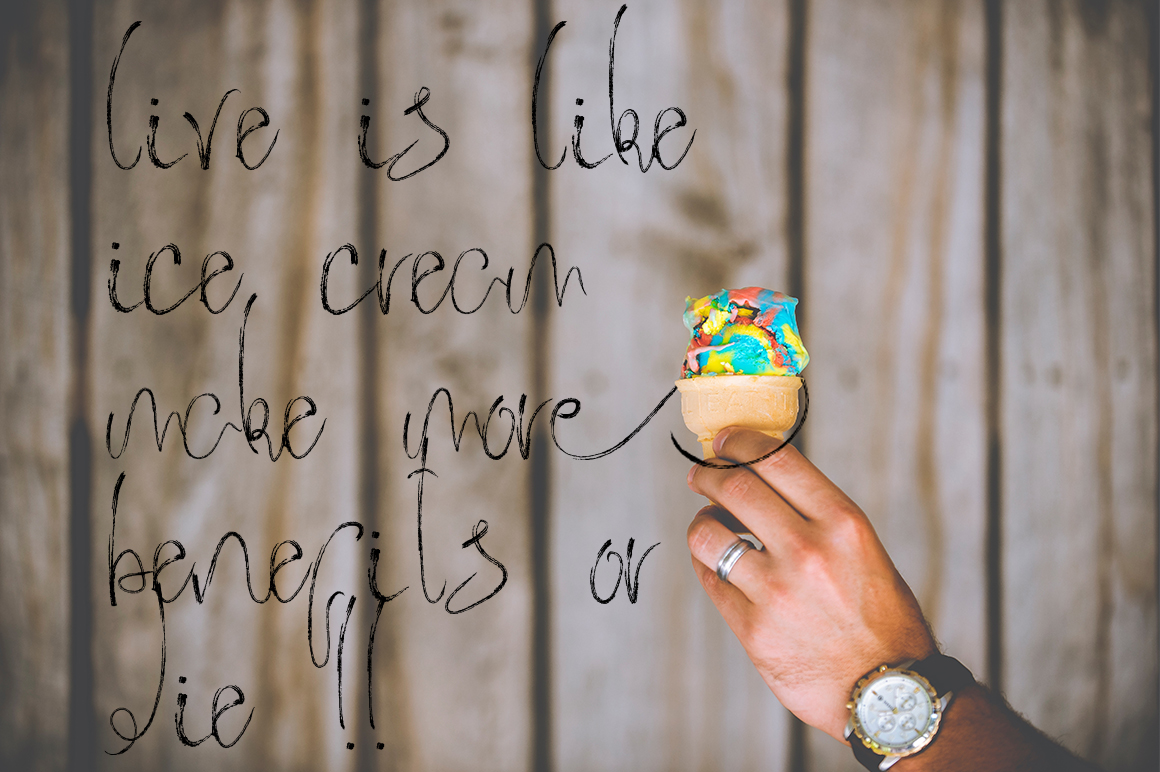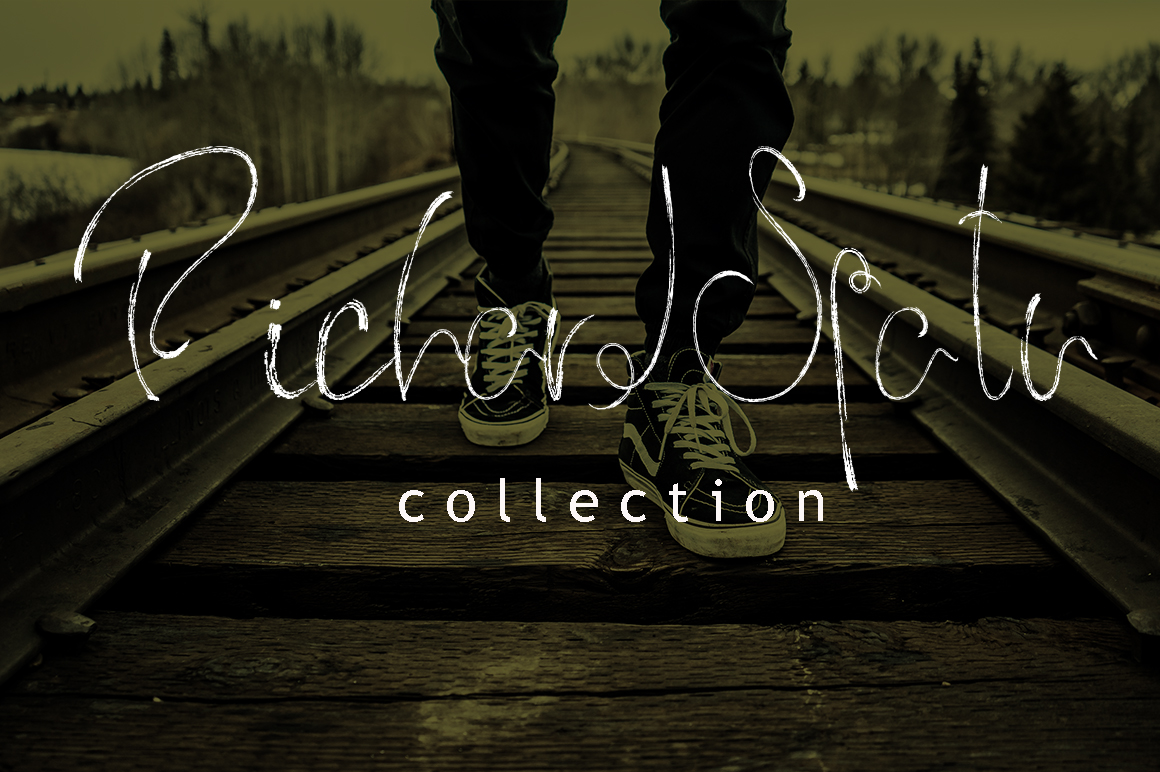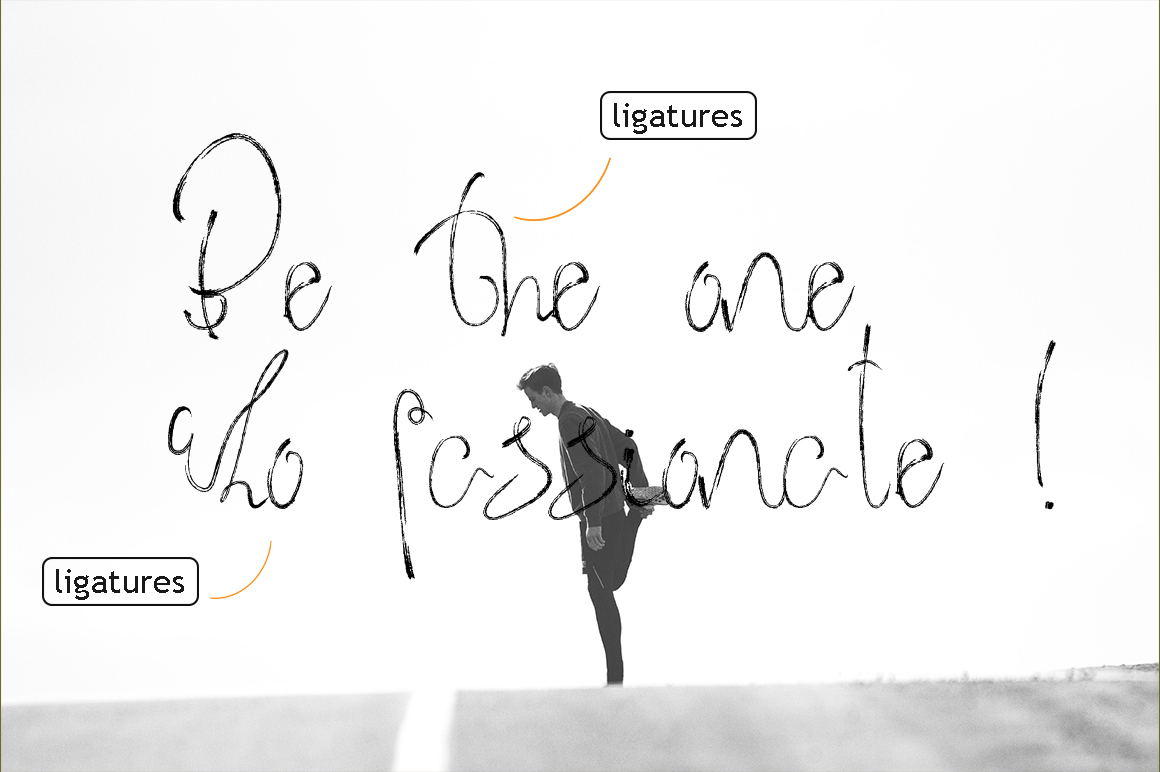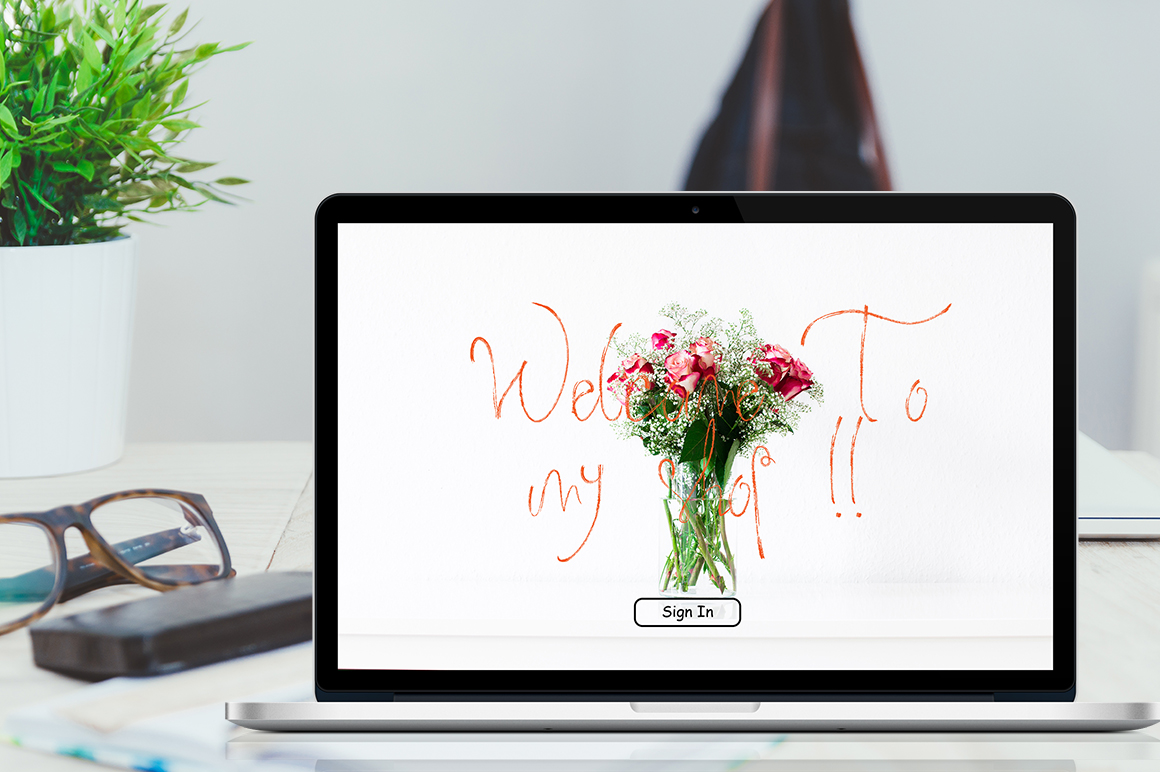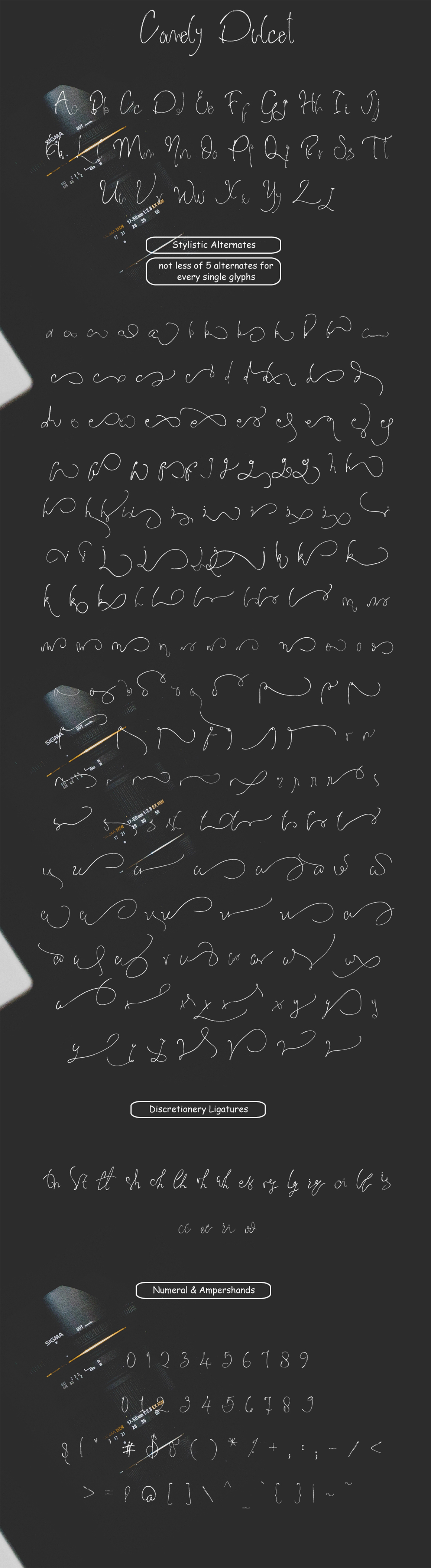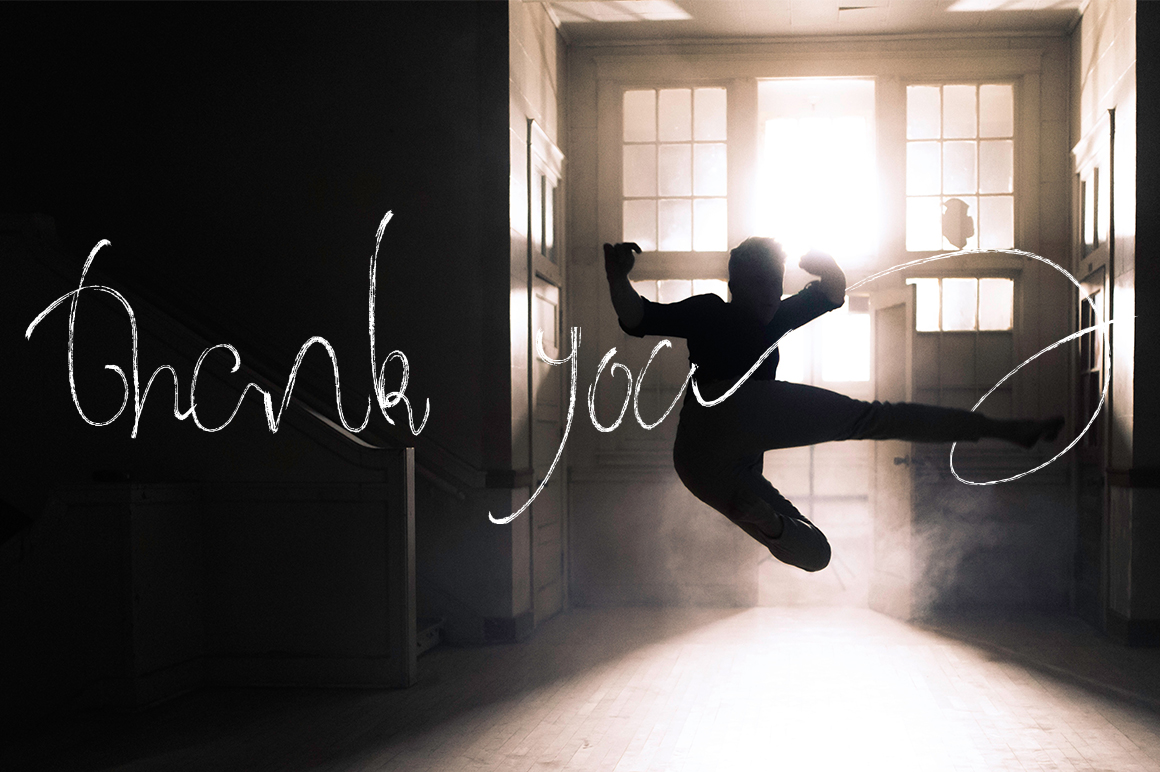
Introducing Comely Dulcet Font: A Thin Handmade Script for Personalized Designs
Are you a designer or crafter looking for a unique and personal touch to add to your designs? Look no further than the Comely Dulcet Font, a beautiful thin handmade script that is sure to elevate your work. In this article, we’ll take a closer look at the Comely Dulcet Font, its features, and how it can be used to add a touch of elegance and sophistication to your designs.
What is Comely Dulcet Font?
Comely Dulcet is a thin handmade script font created with the intention of giving a personal touch to your designs. The font is carefully crafted to provide a delicate and elegant feel, making it perfect for a variety of design projects, from wedding invitations and branding materials to craft tutorials and digital art.
Features of Comely Dulcet Font
The Comely Dulcet Font boasts several features that make it a standout choice for designers and crafters. Some of its key features include:
- Thin and delicate: The Comely Dulcet Font is a thin and delicate script font that provides a subtle and elegant feel to your designs.
- Handmade: The font is carefully handmade, giving it a unique and personal touch that sets it apart from other fonts.
- Script style: The Comely Dulcet Font is a script font that provides a flowing and connected feel, perfect for creating elegant and sophisticated designs.
- Versatile: The font is versatile and can be used for a variety of design projects, from digital art and branding materials to craft tutorials and wedding invitations.
How to Use Comely Dulcet Font
The Comely Dulcet Font is easy to use and can be incorporated into a variety of design projects. Here are a few ways you can use the font:
- Wedding invitations: The Comely Dulcet Font is perfect for creating beautiful and elegant wedding invitations that set the tone for a special day.
- Branding materials: The font can be used to create a cohesive brand identity, including logos, business cards, and letterheads.
- Craft tutorials: The Comely Dulcet Font is a great choice for craft tutorials, adding a personal touch to your instructions and making them more visually appealing.
- Digital art: The font can be used to add a touch of elegance and sophistication to digital art, including illustrations, graphics, and more.
Benefits of Using Comely Dulcet Font
There are several benefits to using the Comely Dulcet Font in your designs. Some of the benefits include:
- Unique and personal touch: The Comely Dulcet Font provides a unique and personal touch to your designs, setting them apart from others.
- Elegant and sophisticated: The font adds an elegant and sophisticated feel to your designs, making them perfect for a variety of applications.
- Versatile: The Comely Dulcet Font is versatile and can be used for a variety of design projects, making it a great addition to your font library.
- Easy to use: The font is easy to use and can be incorporated into a variety of design projects, making it a great choice for designers and crafters of all levels.
In conclusion, the Comely Dulcet Font is a beautiful thin handmade script font that is perfect for adding a personal touch to your designs. With its delicate and elegant feel, the font is sure to elevate your work and provide a unique and sophisticated look. Whether you’re a designer or crafter, the Comely Dulcet Font is a great addition to your font library and can be used for a variety of design projects.